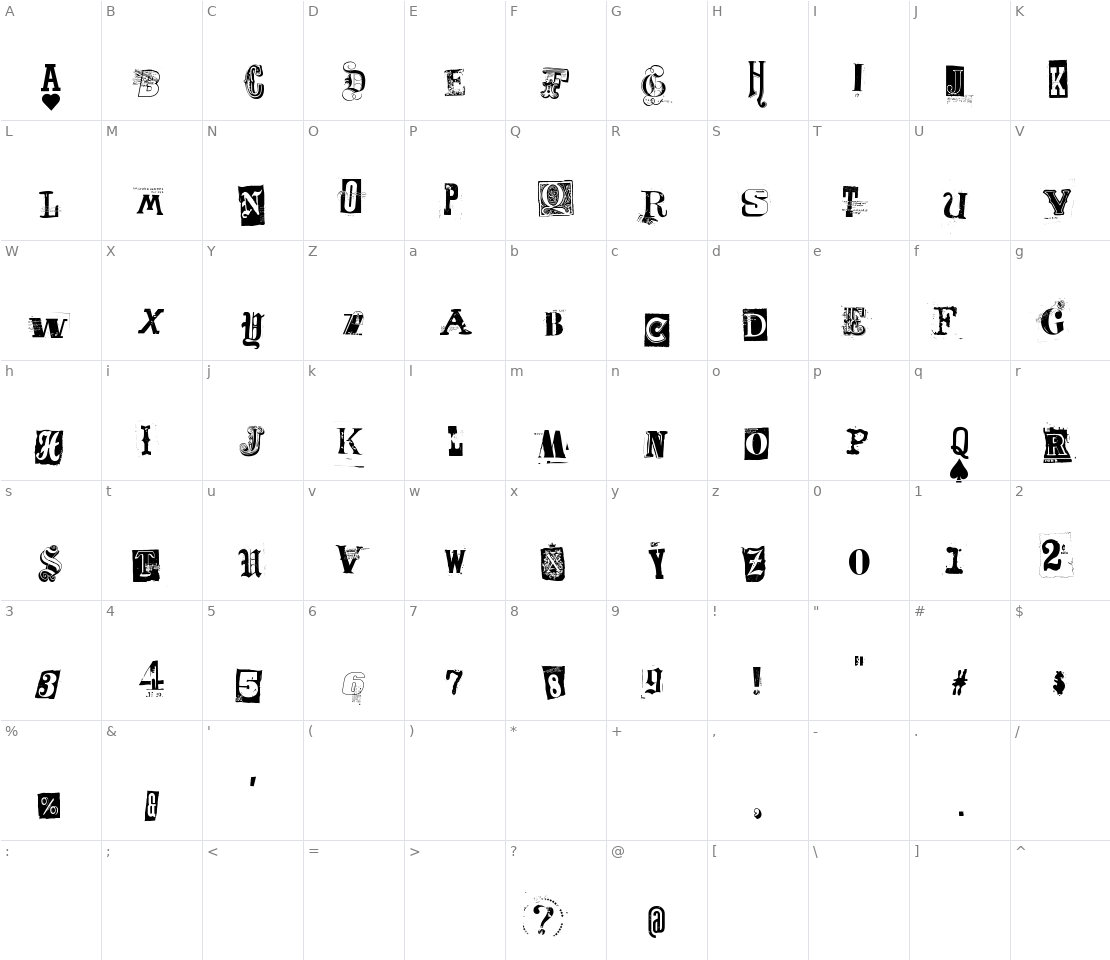
Freakshow
Freakshow is a wildly ornate display face from Sharkshock that pulls its visual language straight from Victorian-era circus and carnival posters. Each letter is a different decorative style, mixing shadow effects, inline detailing, and exaggerated proportions in a way that feels chaotic by design. Built for headlines, event posters, and anything that wants to channel the theatrical energy of a 19th-century sideshow bill.